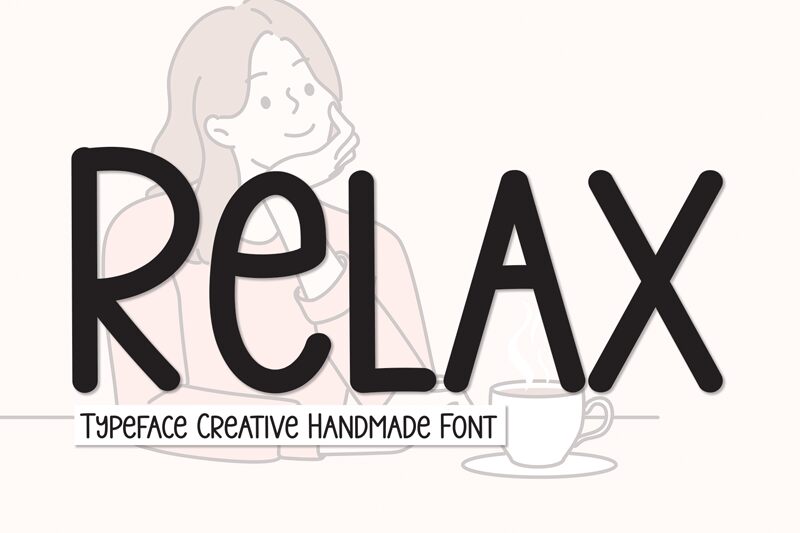
Relax
Relax, crafted by Scratchones, is a captivating handwritten font with a distinctly condensed width that adds an element of elegance and sophistication to any design. Its fluid and organic strokes exude a sense of authenticity and warmth, making it perfect for projects that require a personal touch.
Ideal for branding, invitations, and social media graphics, Relax brings an approachable yet refined aesthetic to the forefront. The condensed nature of the font ensures that it stands out while maintaining readability, making it versatile for both headlines and body text. Whether you're aiming to create an inviting logo or an eye-catching poster, Relax offers the perfect blend of style and functionality.